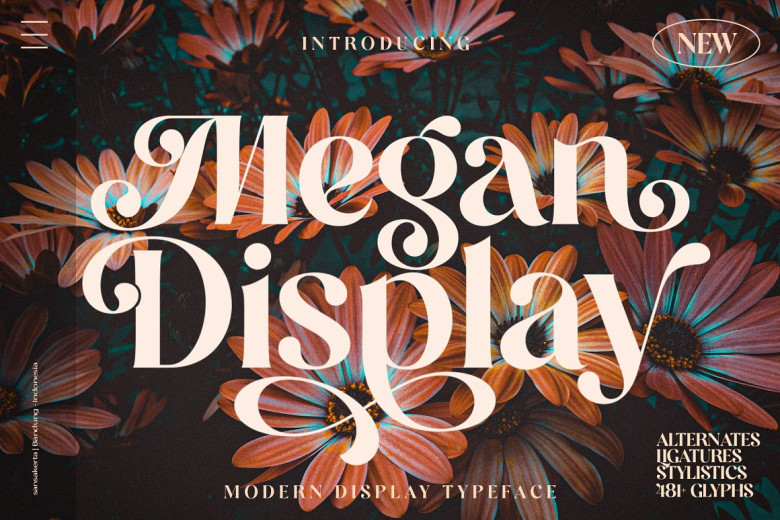
Megan Font
A special modern style font, Megan is characterized by exquisite precision and elegant curves. Every letter in Megan has an alternative and used to glyph to make your job special. It is incredibly suitable for branding design, logos, greeting cards, signs packaging. What could you do with Megan? Hopefully something truly amazing!
Megan Display Serif Font